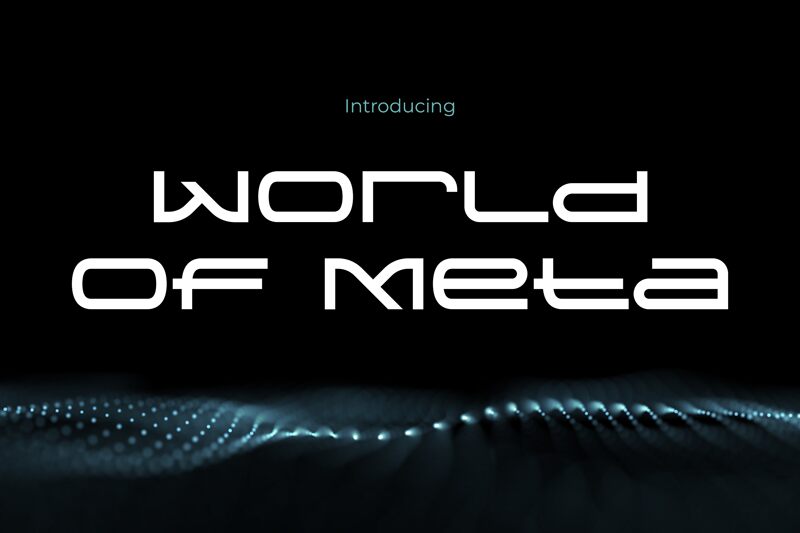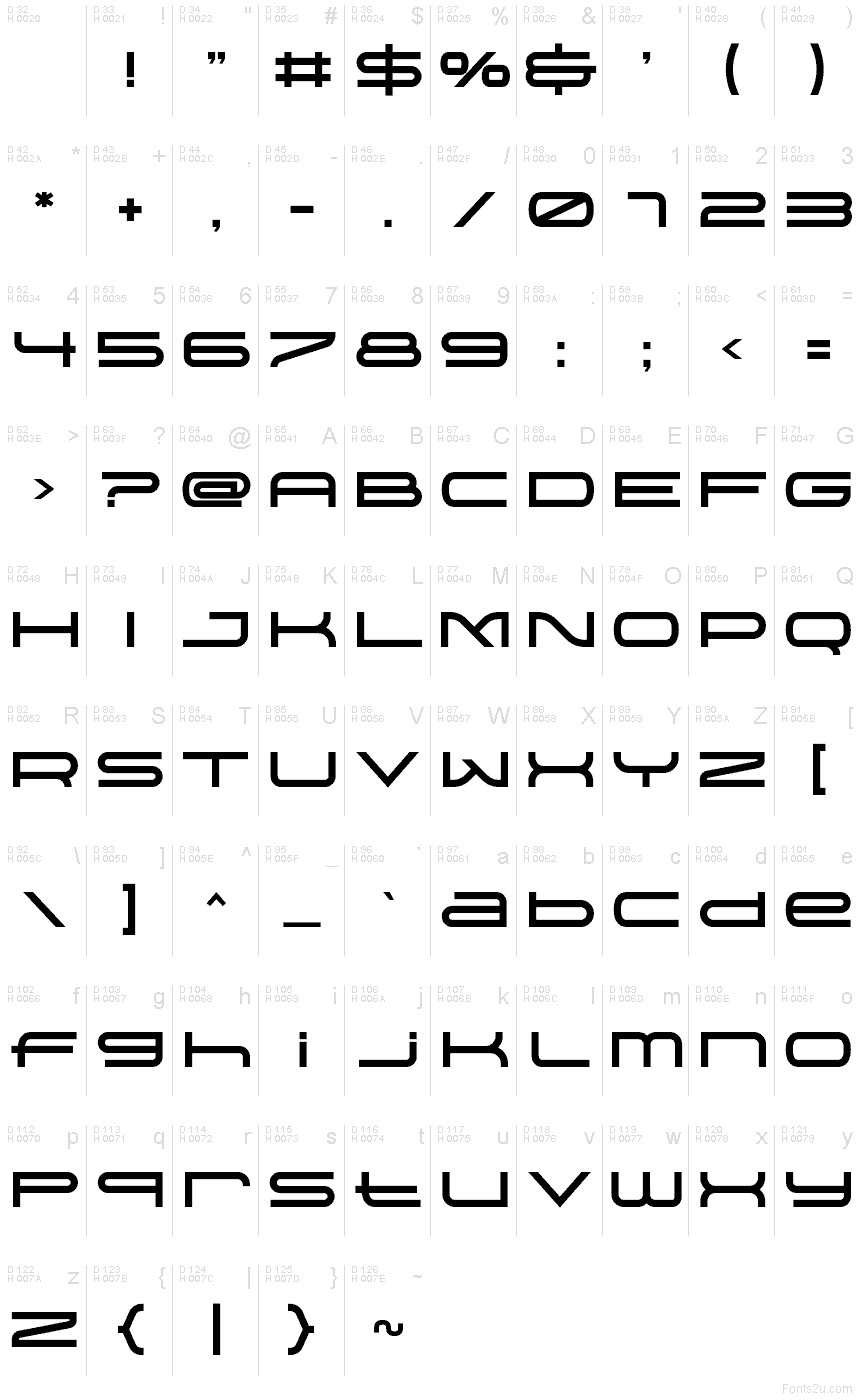
World-of-Meta
World-of-Meta font by Pinisiart is a free techno display font. Built from sleek, tubular strokes with crisp interior cut-ins, it has a modular, circuit-like rhythm that feels both fluid and engineered. The rounded corners and squared turns create a smooth, aerodynamic flow, while the tight geometry keeps it assertive on a dark or neon-lit backdrop.
Using World-of-Meta, headlines snap into place with a futuristic hum-great for sci‑fi posters, gaming logos, esports banners, VR branding, tech conference titles, and synthwave album art. This free font shines at large sizes; add a hair of tracking for clarity. Pair with a clean geometric sans for body copy to let the glossy, wired contours take center stage.